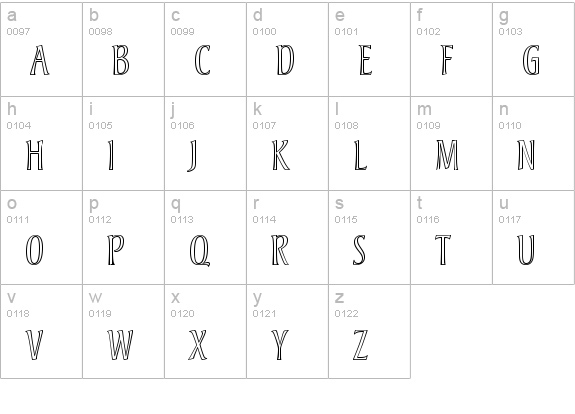
Andreas Std Font Details
Andreas Std is a beautifully crafted font that exudes elegance and sophistication. With its clean lines and classic design, this versatile typeface is perfect for a wide range of projects, from branding to editorial design. The timeless appeal of Andreas Std makes it a go-to choice for designers looking to add a touch of refinement to their work. The best part? Andreas Std is completely free to download at FontsMarket.com. You can easily access this exquisite font and enhance your projects with its timeless charm without any cost. Whether you're working on a logo, website, or print materials, Andreas Std is sure to elevate your designs and leave a lasting impression on your audience. Download Andreas Std today and experience the beauty and versatility of this stunning font for yourself.